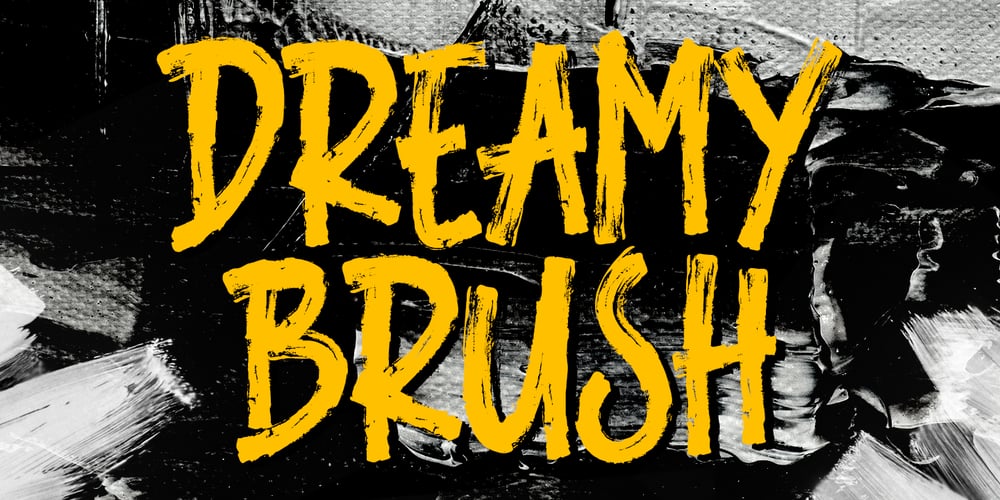
Dreamy Brush
Dreamy Brush font
Dreamy Brush Font Family was designed by khaidir and published by Gatype. Dreamy Brush contains 1 styles and family package options. Dreamy Brush is textured brush font, contemporary approach to design, handmade natural with an irregular baseline. Suitable for use in title design. Such as apparel, invitations, books tittle, stationery design, quotes, branding, logos, greeting card, t-shirt, packaging design, poster and more. Dreamy Brush includes a complete set of uppercase and lowercase letters, as well as multi-language support, numbers, punctuation, ligatures.Thanks so much for looking and please let me know if you have any questions.